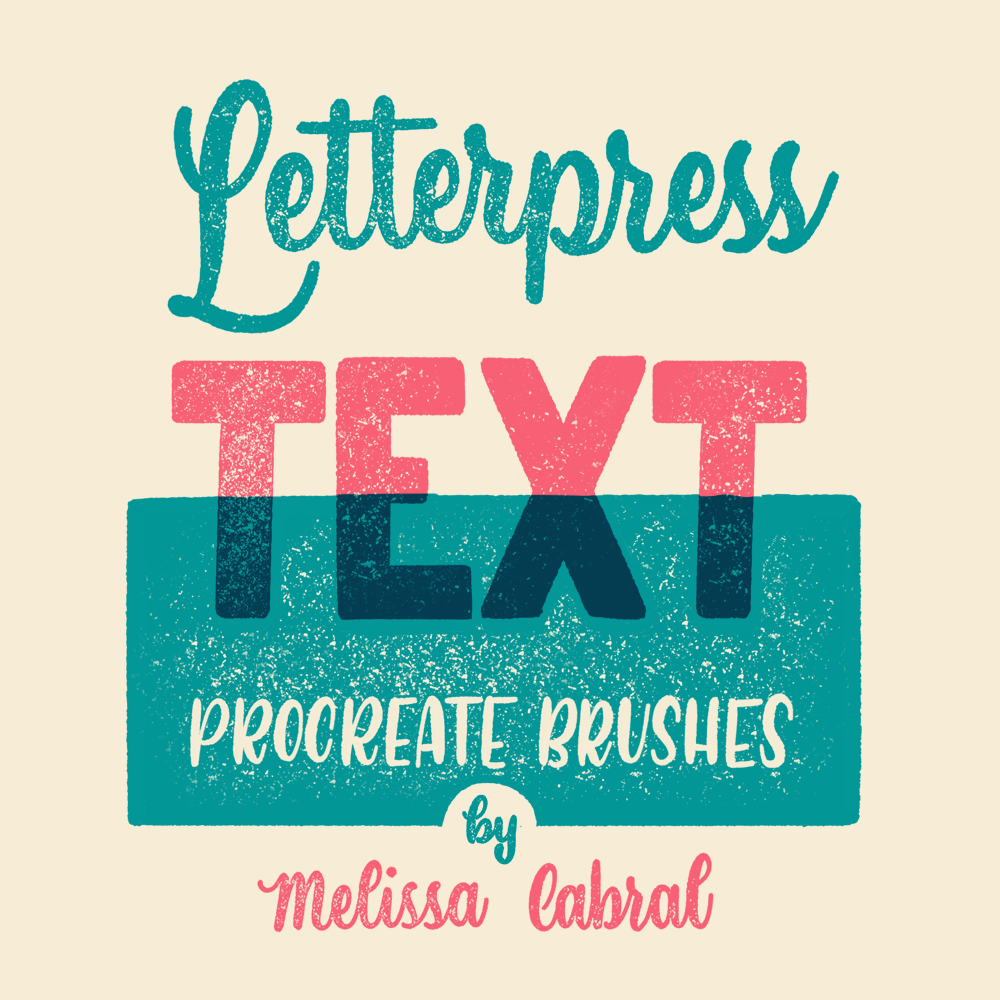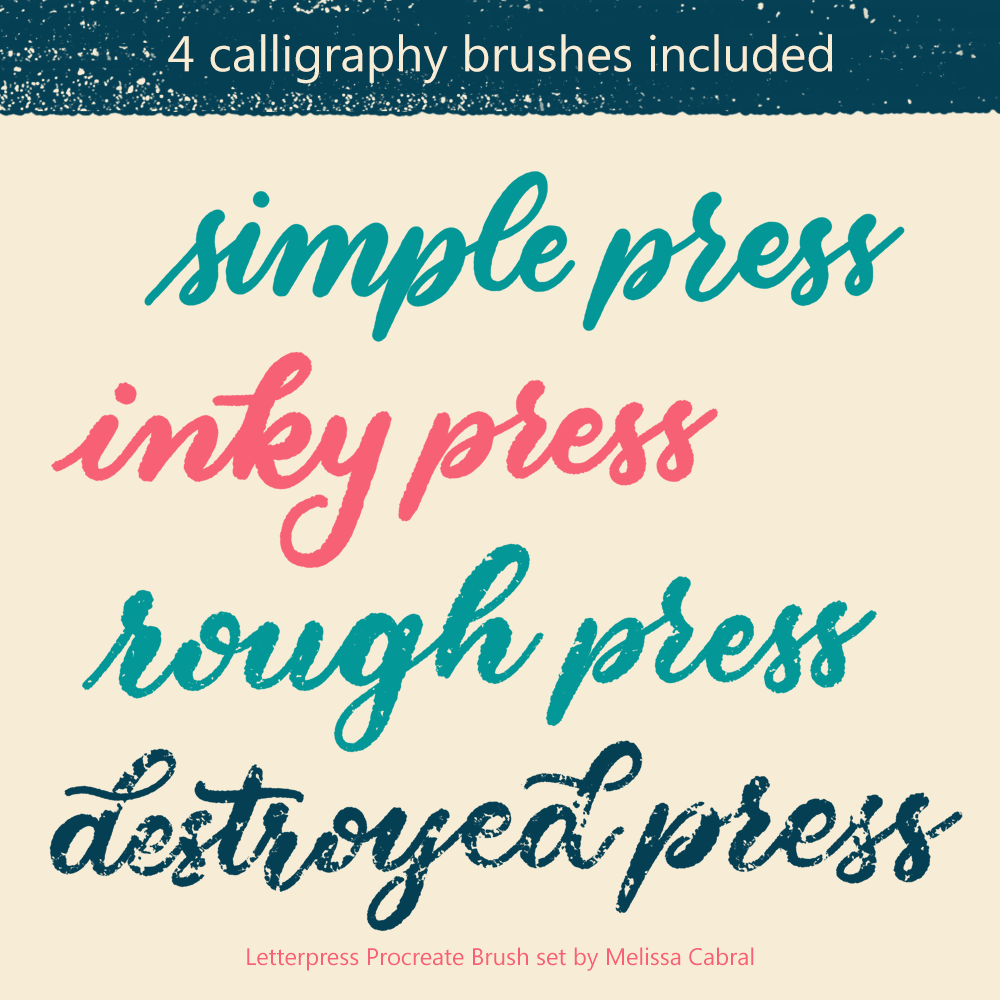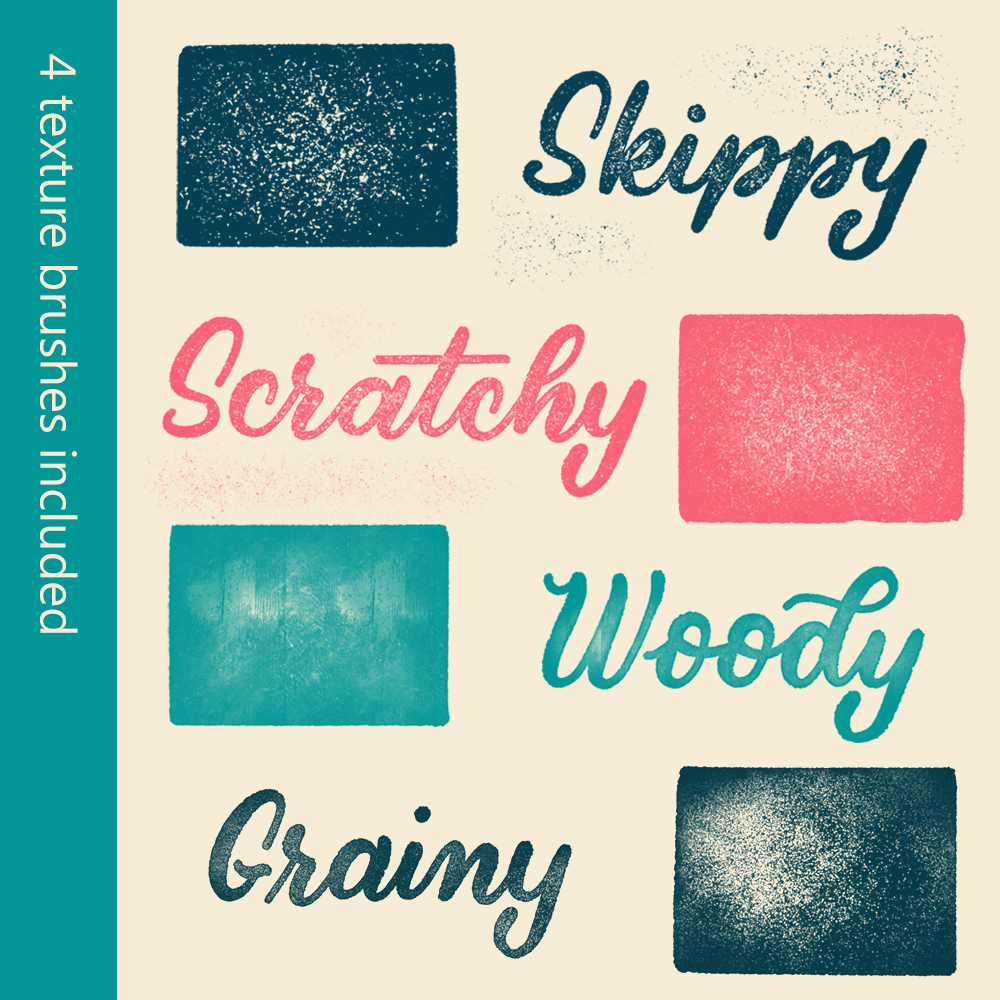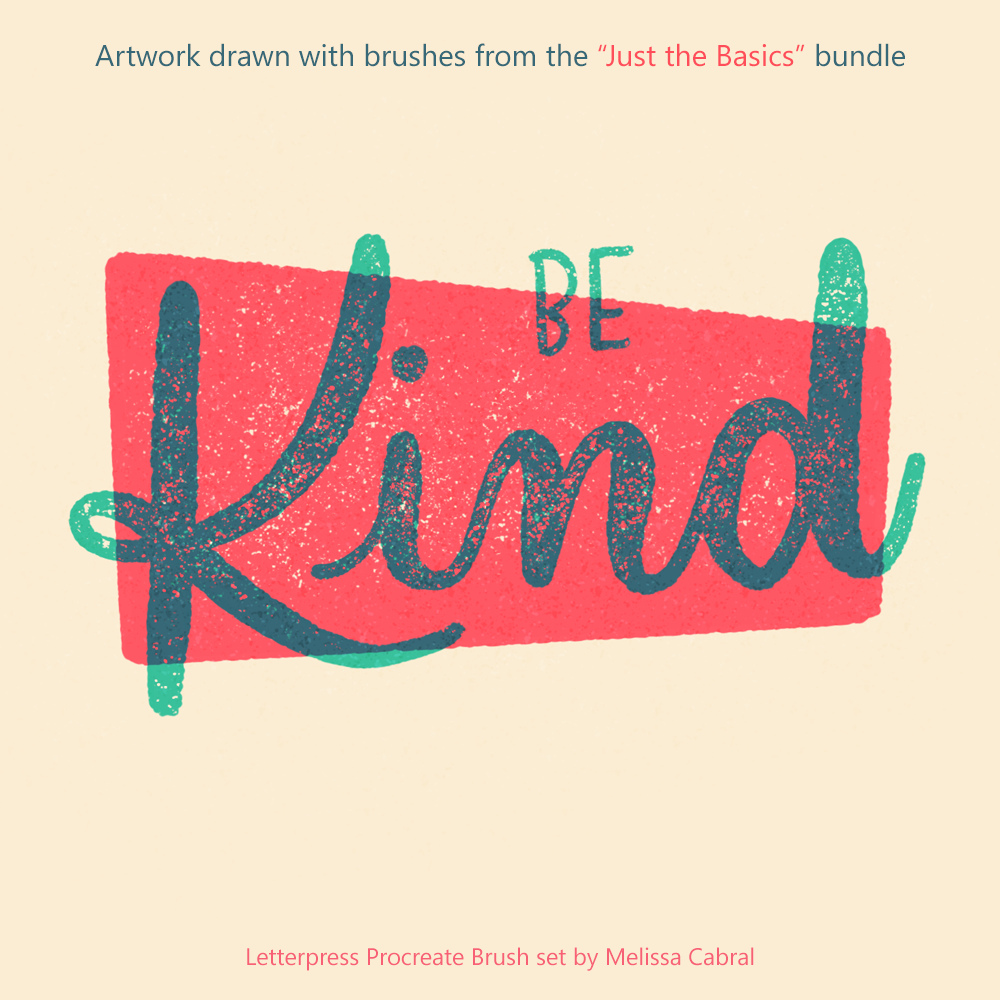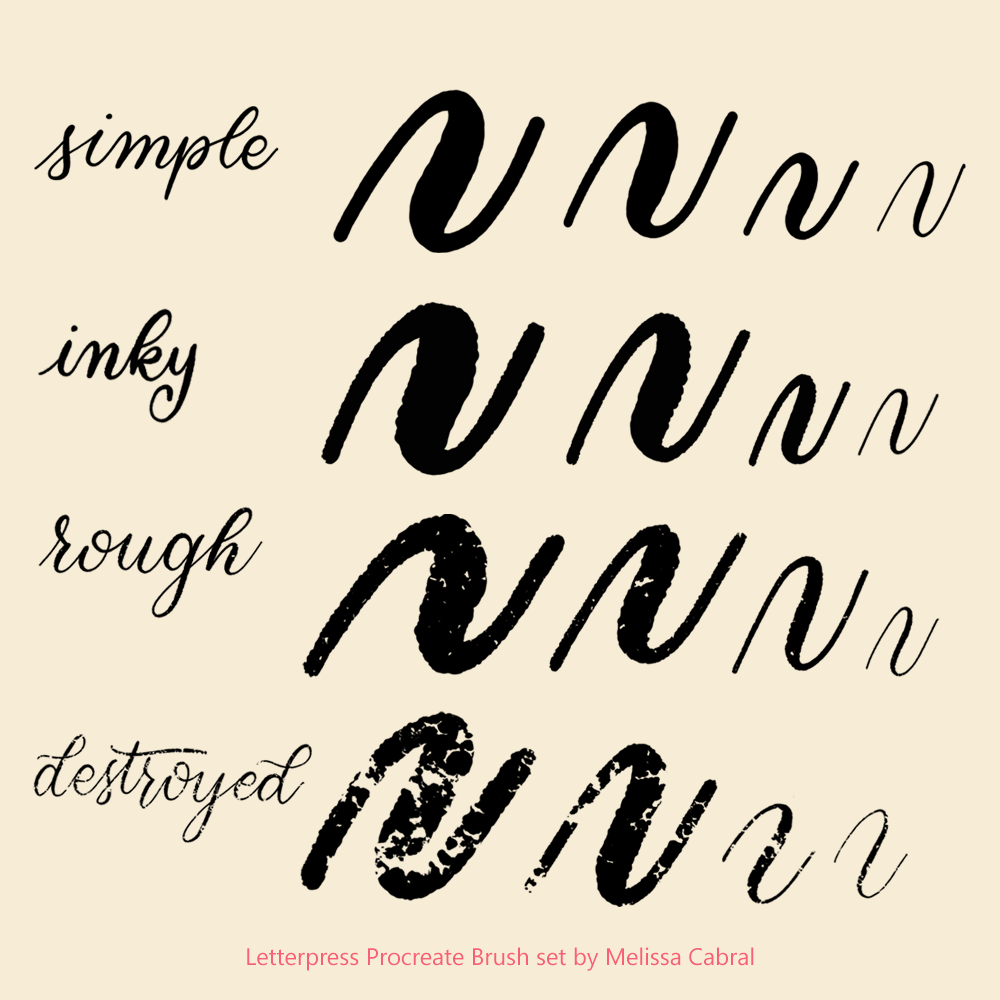
Letterpress Procreate Brushes - Calligraphy and Texture collection
I love vintage signs and letterpress posters and wanted to achieve that look on my Procreate Calligraphy. These brushes are the result of my efforts to reproduce a handful of different printing and stamping styles. You can combine the texture and calligraphy brushes to make many different distressed effects! Each brush in the collection features unique settings and hand-drawn source art.
- All 4 Calligraphy Brushes - Simple, Inky, Rough and Destroyed
- All 4 Texture Brushes - Skippy, Scratchy, Woody and Grainy
- Draw your letters with any of the calligraphy brushes
- Use any of the texture brushes to erase parts of the lettering. Use soft, circular strokes for best results.
- Experiment with different combinations and have fun pressing letters!